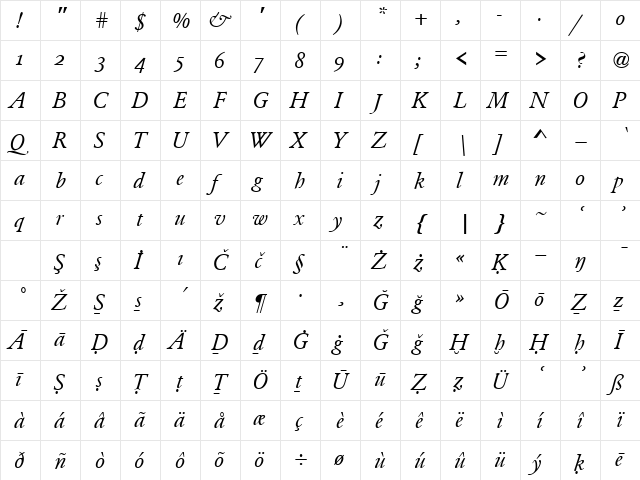
OI-Beyrut Normal-ItalicA
Design Context for OI-Beyrut Typeface
OI-Beyrut is a composed and adaptable typeface that performs quietly and consistently across a wide range of design contexts. The dynamic lean of this cut emphasises speed and emphasis in any layout.
Pro Tip: Try OI-Beyrut for annotation and caption copy alongside an upright companion — the contrast in angle creates a dynamic but ordered typographic system.